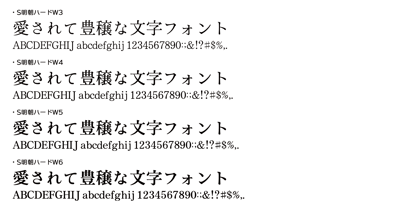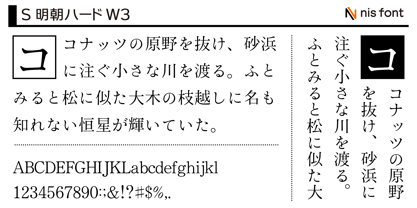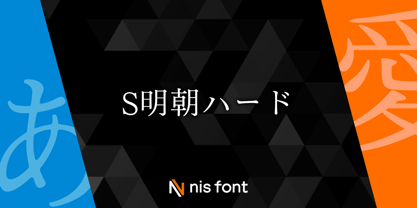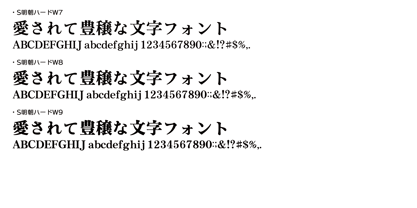
OT-NIS_SMH
by NIS Fonts
The OT-NIS_SMH Font Family was designed by and published by NIS Fonts. OT-NIS_SMH contains 7 styles and family package options. More about this family
This is the flagship Mincho font of NIS Fonts. Including this product, it offers a family of seven weight variations, ranging from W3 to W9. This typeface is ideal for documents that communicate gently and sincerely, delivering messages without causing stress. In addition to body text, it can also be used for catchy headlines. The kana characters are designed slightly smaller, making the kanji stand out and enhancing readability. To ensure the font remains easy on the eyes and does not cause reading fatigue, all corners have been rounded. Moreover, the horizontal strokes are thicker, and the overall craftsmanship is meticulous, making it well-suited for on-screen display.
The font includes two variations: "Soft," which conveys a classic image, and "Hard," which creates a stronger impression. The "Hard" series features kana characters with widths as uniform as possible and exaggerated stroke beginnings for a bold, distinctive design. Supports the JIS2004 character set.